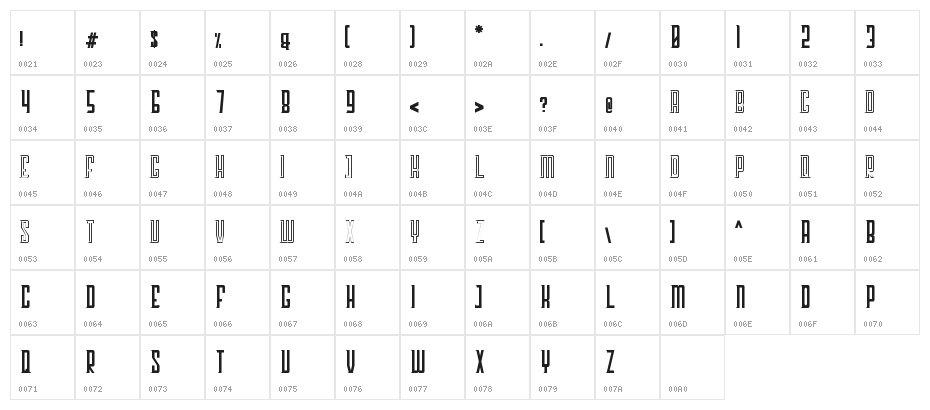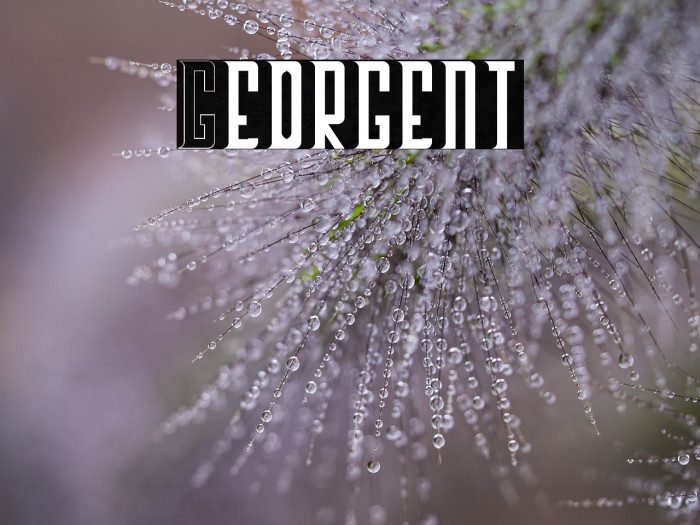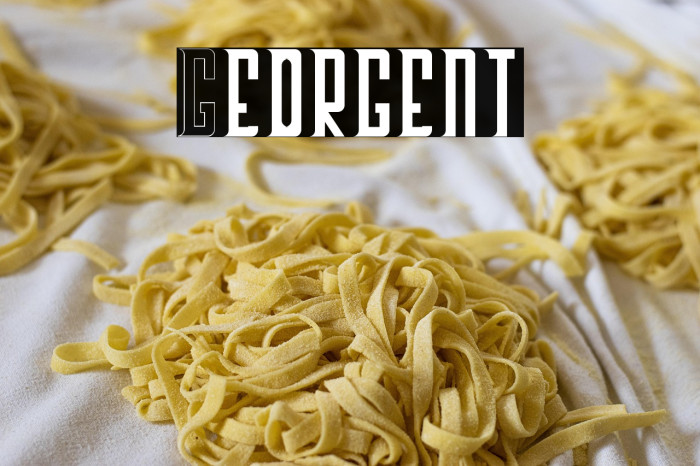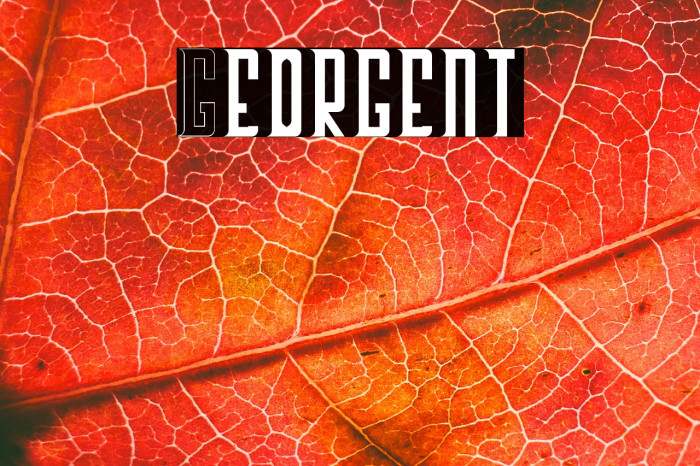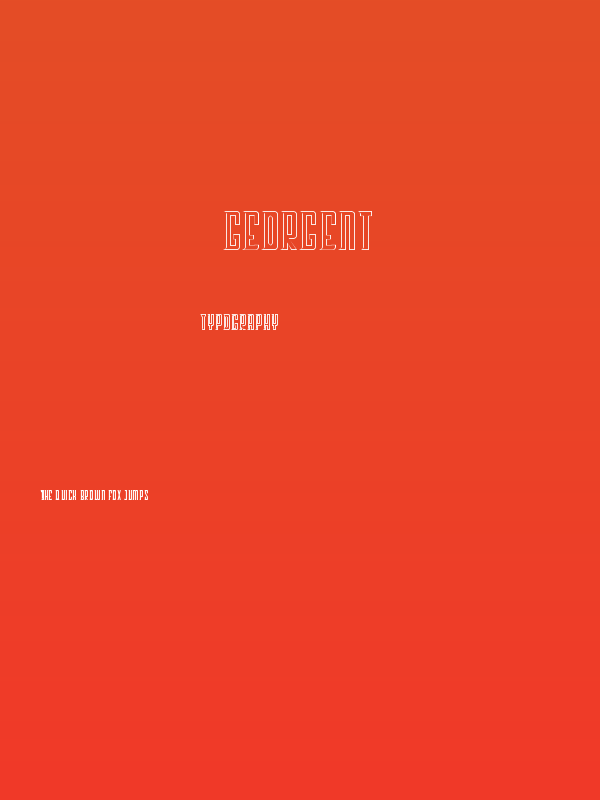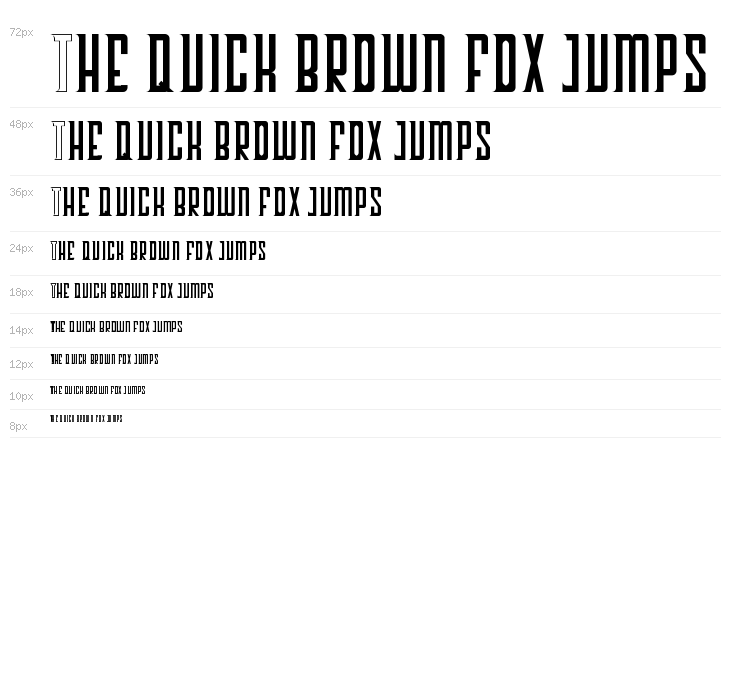
Georgent Font
Georgent Description
This font features a bold, geometric design with a strong presence. The uppercase letters are tall and narrow, with sharp angles and a distinct, modern aesthetic. The numbers and special characters follow the same style, maintaining a cohesive look throughout. The font's structure is clean and precise, making it suitable for impactful headlines and titles. Its unique design elements give it a futuristic feel, while the consistent stroke width ensures readability.
| Proposed Projects | Ideal for branding, posters, and headlines that require a strong visual impact. |